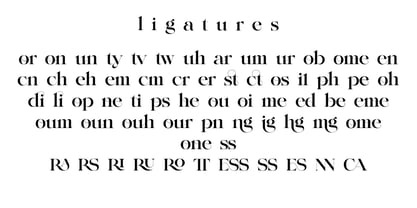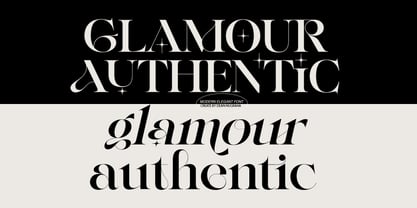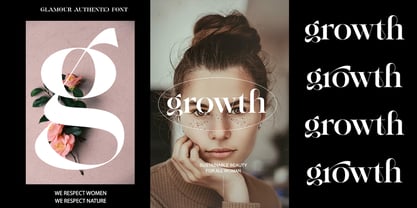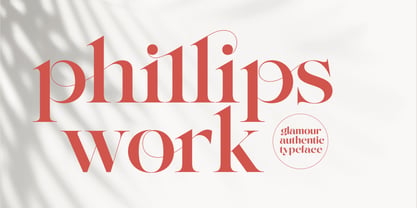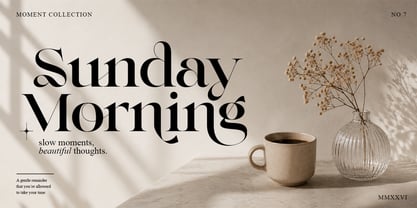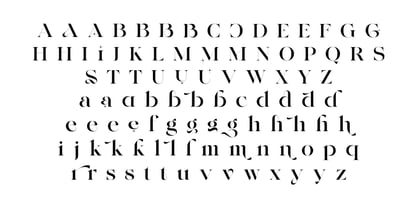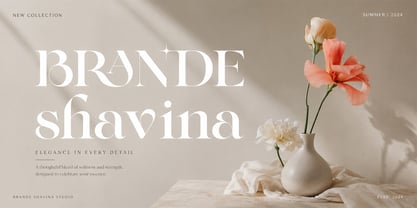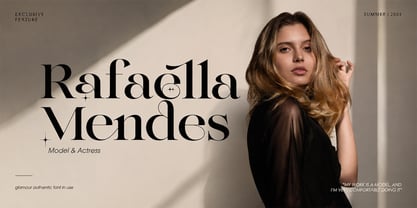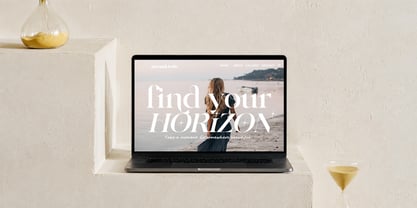
Glamour Authentic
by Sansakerta
The Glamour Authentic Font Family was designed by Dean Nugraha and published by Sansakerta. Glamour Authentic contains 2 styles and family package options. More about this family
Hello, this time we would like to introduce a new product. namely "Glamour Authentic", a Serif display font that has a classic, feminine, and elegant style wrapped with a beautiful Alternate stylist.
The Glamour Authentic font is perfect for various projects like logos & branding, invitations, stationery, wedding designs, social media posts, advertisements, printed quotes, product packaging, product designs, labels, photography, watermarks, special events or anything else.
Designers: Dean Nugraha
Foundry: Sansakerta
Glamour Authentic